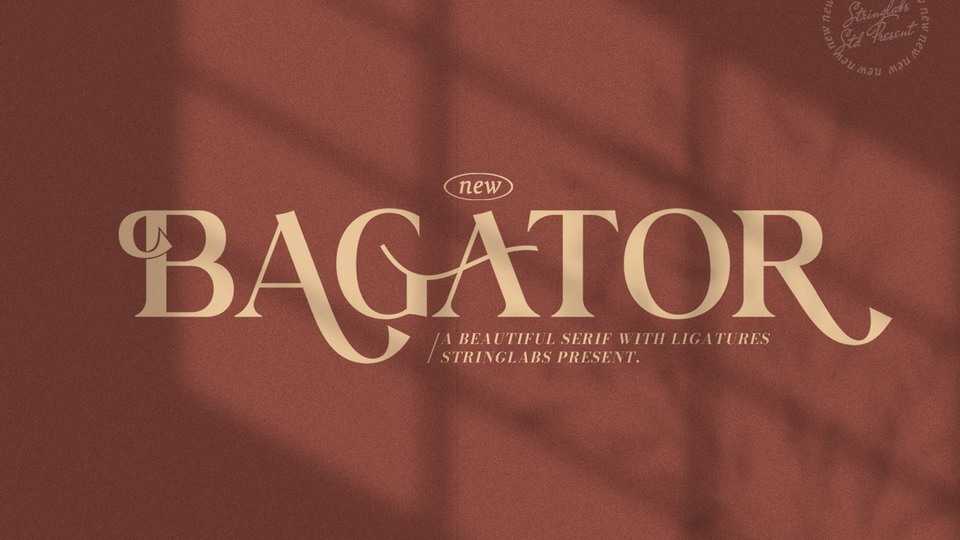
Download Bagator font, an authentic and neat serif typeface. Bagator can easily be matched to an incredibly large set of projects, so add it to your creative ideas and notice how it makes them stand out.